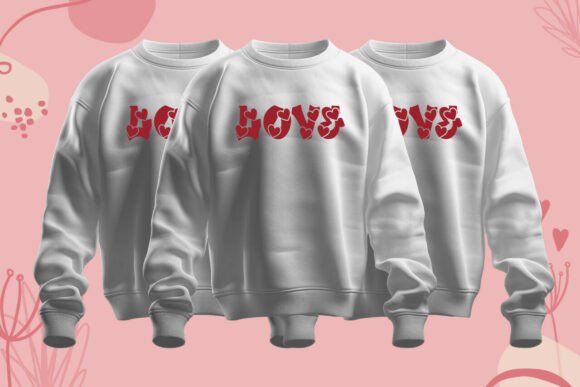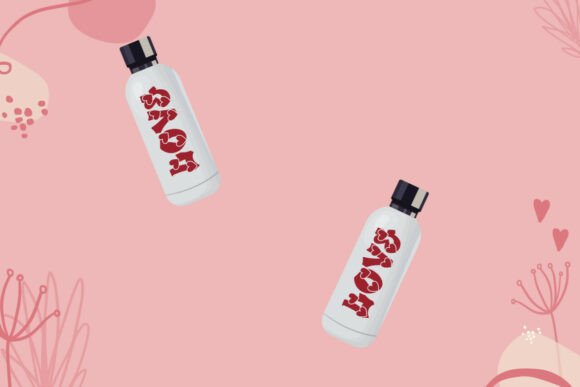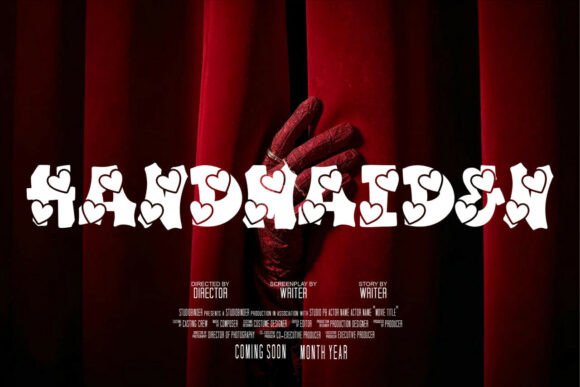
Introduction to Plump Valentine Font
Do you remember the first time you saw a handwritten love note on a sticky note, or a cute Valentine’s Day card from a child? The sweet, bubbly charm of those moments can be captured with the perfect font. Meet Plump Valentine Font, a delightful design resource that brings warmth and joy to any creative project.
Whether you’re a seasoned designer or a DIY enthusiast, Plump Valentine Font is a valuable addition to your design arsenal. Its high-quality, rounded letters and wide counters make it perfect for print and screen projects. With a transparent background and clean outlines, you can easily use it for a variety of applications, from Valentine’s Day cards to merchandise and social media posts.
Key Features of Plump Valentine Font
- High-quality design resource ideal for creative projects, including Valentine’s Day cards, invitations, and more.
- Unique, playful font style with rounded edges and a plump appearance, perfect for adding a touch of whimsy to your designs.
Honest Review: Plump Valentine Font
As a designer, I’m always on the lookout for unique and high-quality design resources to elevate my creative projects. Recently, I had the chance to test out the Plump Valentine Font, and I must say it’s been a delightful addition to my design toolkit.
- ✨ Unique and playful style that’s perfect for Valentine’s Day or other romantic-themed projects.
- ✨ High-quality design that’s crisp and clear, even when scaled up or down.
- ✨ Transparent background, making it easy to use with various design elements.
However, I do have a few caveats:
- ⚠️ Limited character set, which may not be ideal for longer texts or paragraphs.
- ⚠️ May not be suitable for professional or corporate projects due to its playful nature.
Overall, I’m thoroughly impressed with the Plump Valentine Font. Its high-quality design and unique style make it a great addition to any designer’s toolkit, especially for creative projects that require a touch of whimsy and romance. Just be mindful of its limitations and use it accordingly.
To get the most out of the Plump Valentine Font, use it in conjunction with a transparent background to create a romantic and whimsical design. You can also experiment with different font sizes and styles to add visual interest to your design.
The Plump Valentine Font is perfect for:
- Valentine’s Day cards and invitations
- Romantic gift tags and wrapping paper